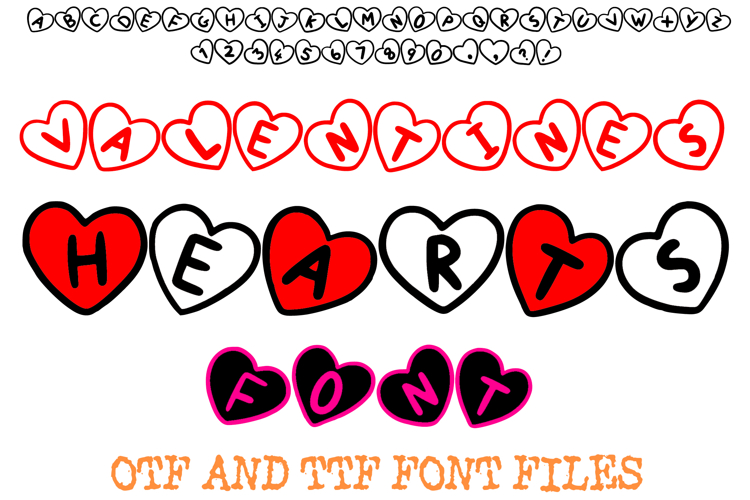
Valentines Hearts Font Sweet Love Letter Typeface Romantic
Add a touch of romance to your typography with the Valentines Hearts Font! Designed specifically for the season of love, this font turns every word into a heartfelt message by encasing each letter and number within a beautifully drawn heart.
Whether you are looking for a classic red-and-white aesthetic or a bold pink-on-black "galentine" vibe, this font provides the perfect foundation for high-impact headlines and decorative text. It is incredibly versatile for both digital and physical crafts, ensuring your Valentine's Day projects stand out with professional, hand-finished quality.
Why Designers Love This Font:
- Pre-Framed Heart Letters: No need to manually place letters inside shapes; every character is already perfectly centered in its own heart.
- Clean & Bold Lines: The thick outlines ensure the hearts and letters remain highly legible, even on textured backgrounds.
- Dynamic Styling Options: Looks fantastic in solid colors, outlines, or layered styles as shown in the previews.
Ideal For: